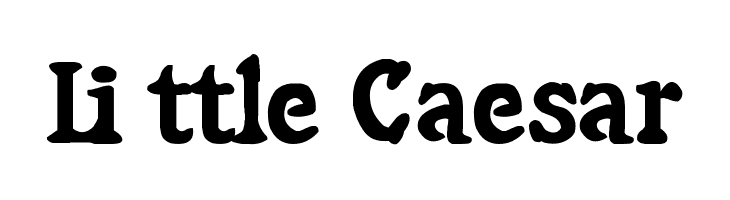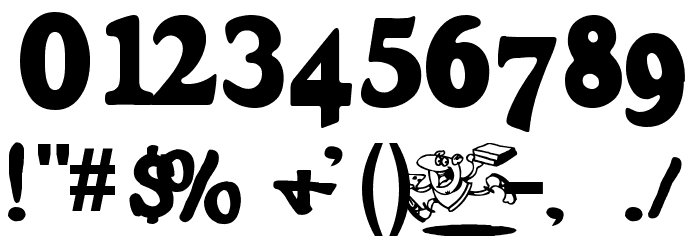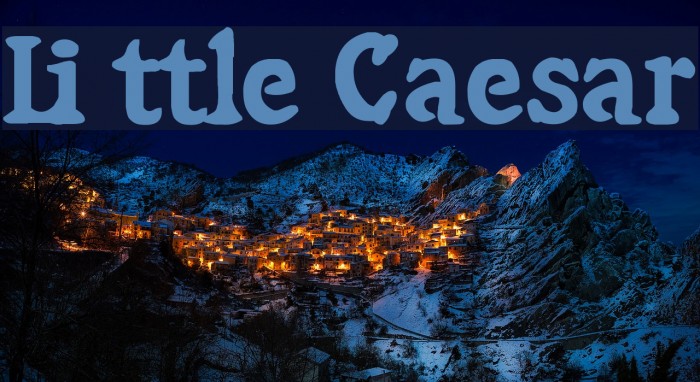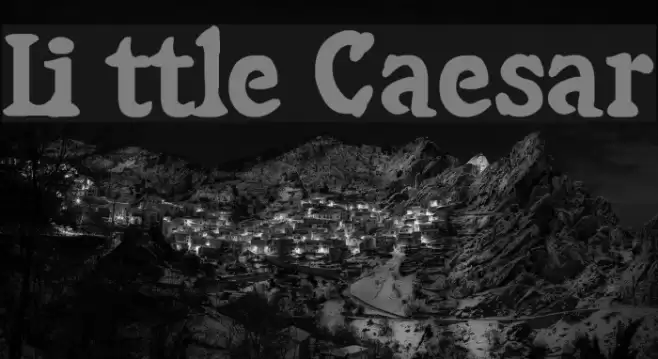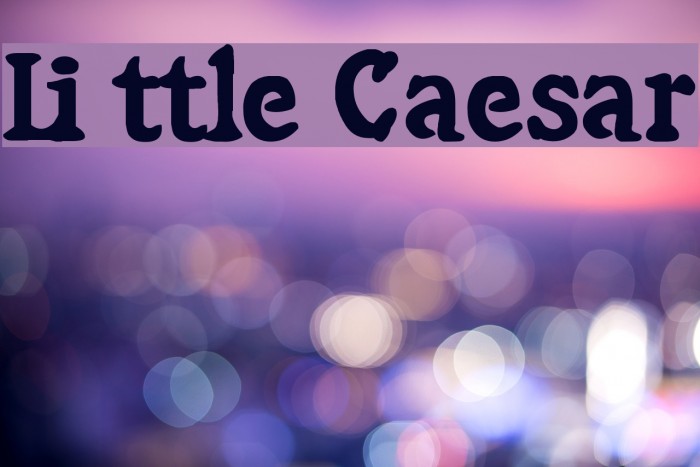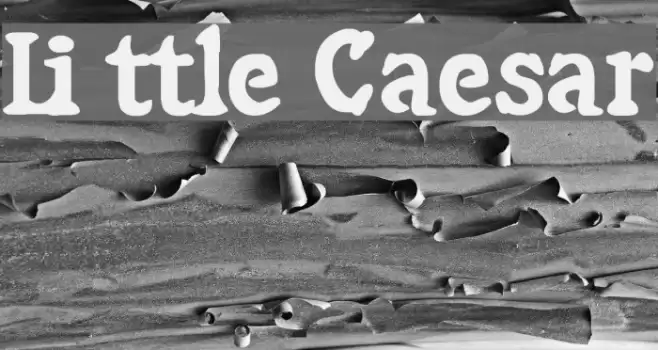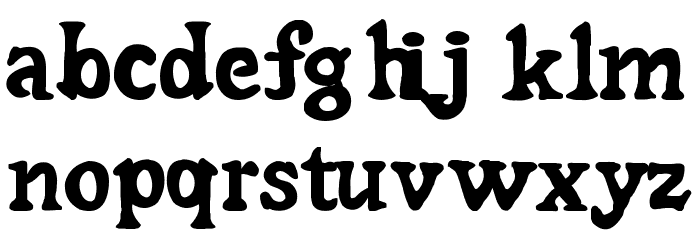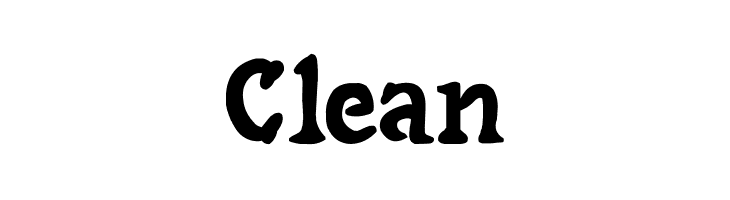
Little Caesar Font
Little Caesar Description
This font exudes a playful and whimsical charm, characterized by its bold and rounded letterforms. The strokes are thick and consistent, giving it a strong presence. The serifs are subtle yet noticeable, adding a touch of classic elegance to the overall playful design. The lowercase letters maintain a uniform height, while the uppercase letters stand tall and prominent. The numbers are equally bold, ensuring readability and consistency across various uses. Special characters are designed with the same playful style, making them suitable for creative and informal contexts.
| Overall Style | Playful |
| Proposed Projects | Ideal for children's books, playful branding, posters, and creative packaging. |